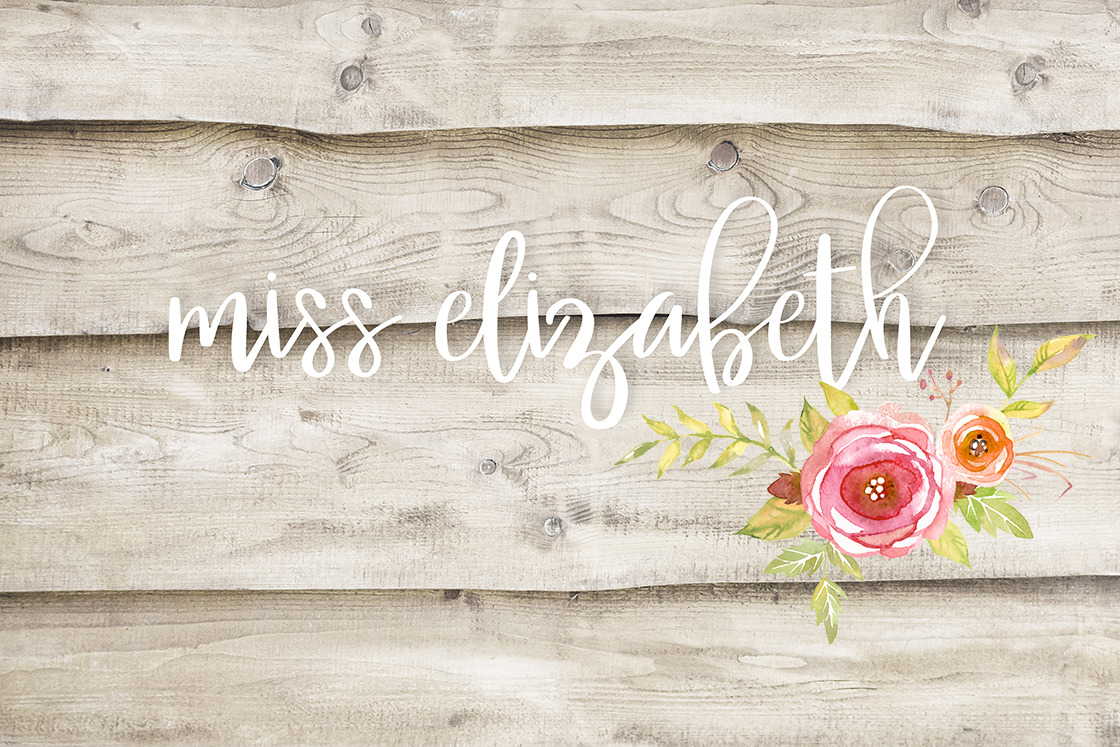
Miss Elizabeth Font
A pretty, handwritten script font. Perfect for greeting cards, stationary, scrapbooking, prints and more! Includes numbers, and punctuation.